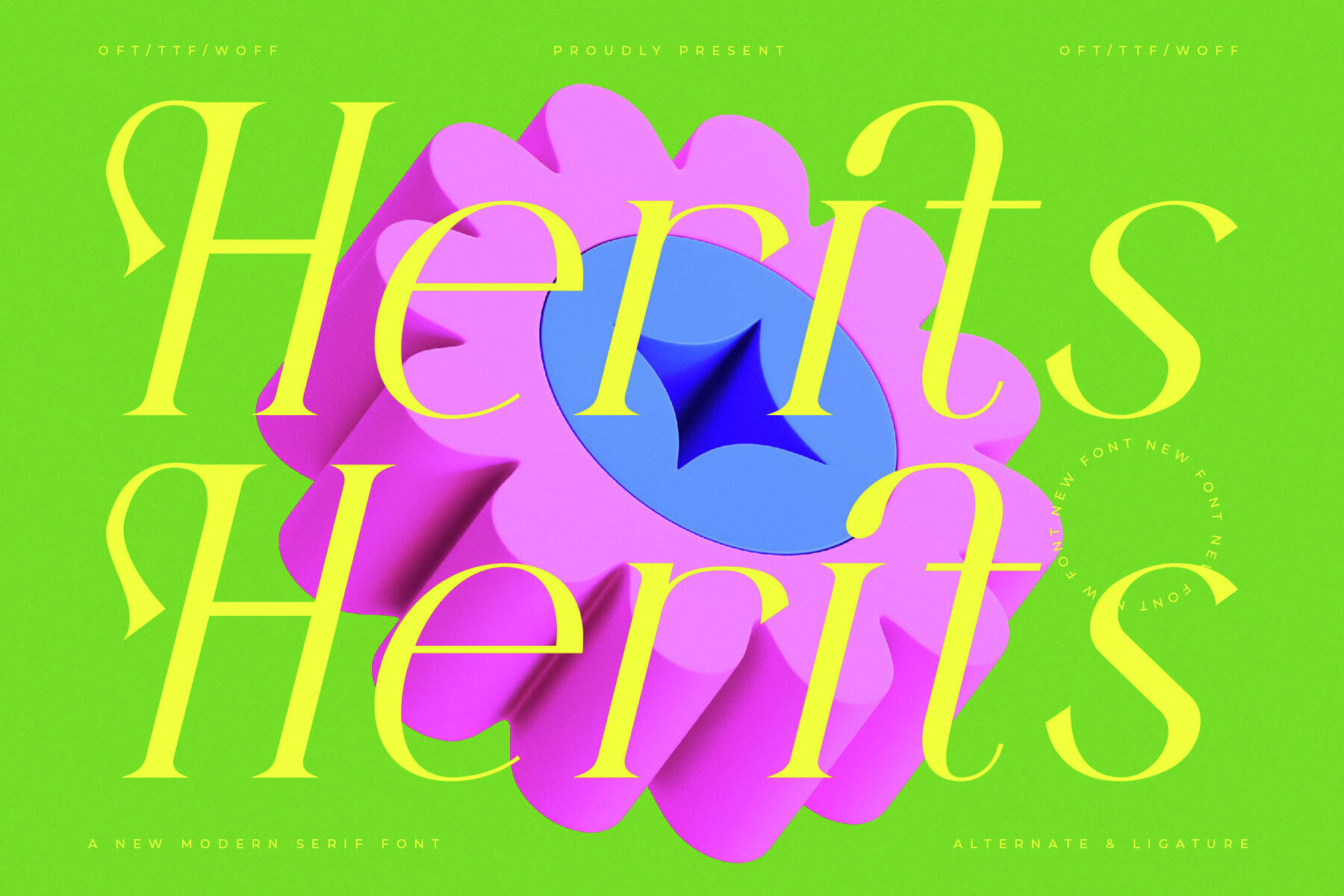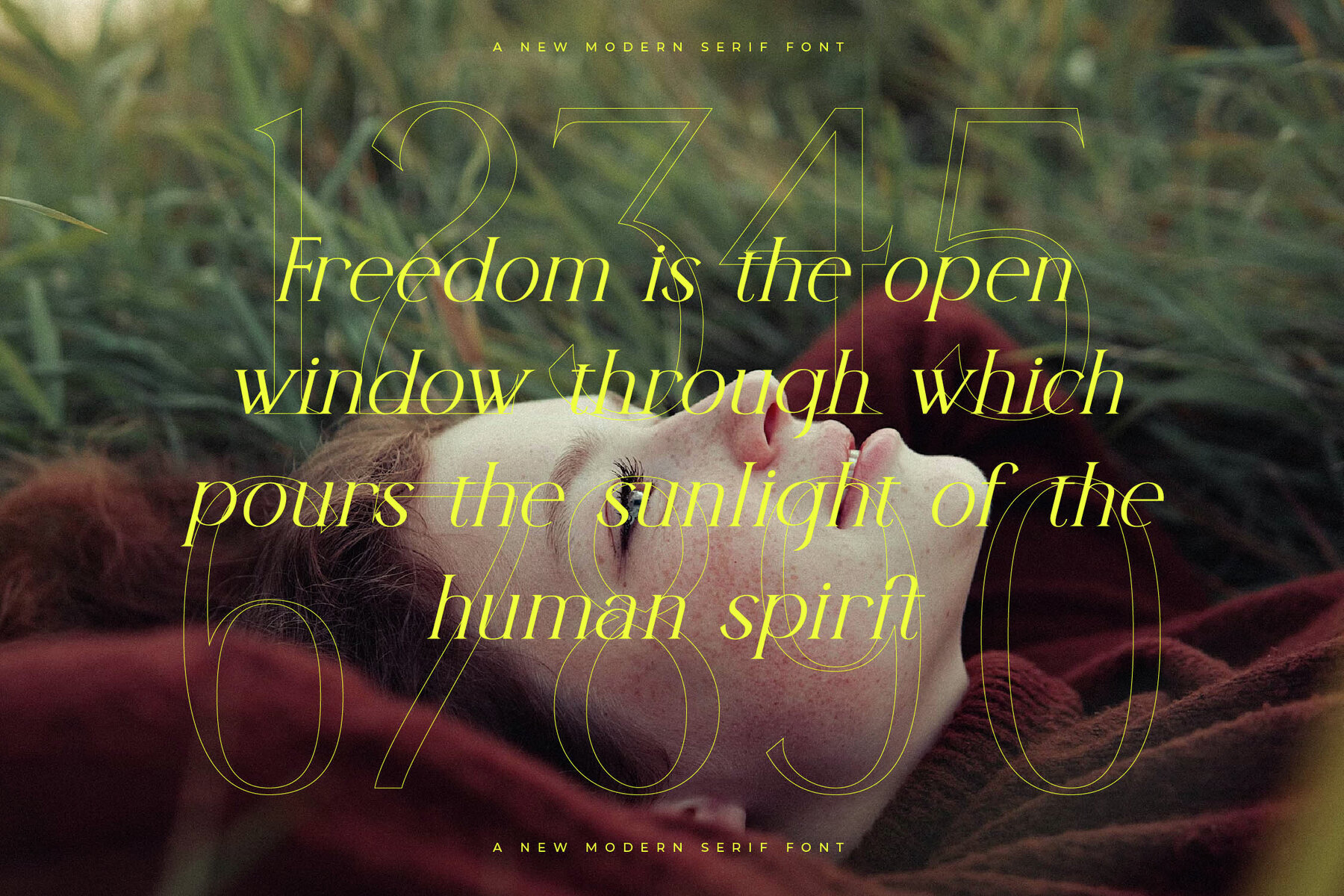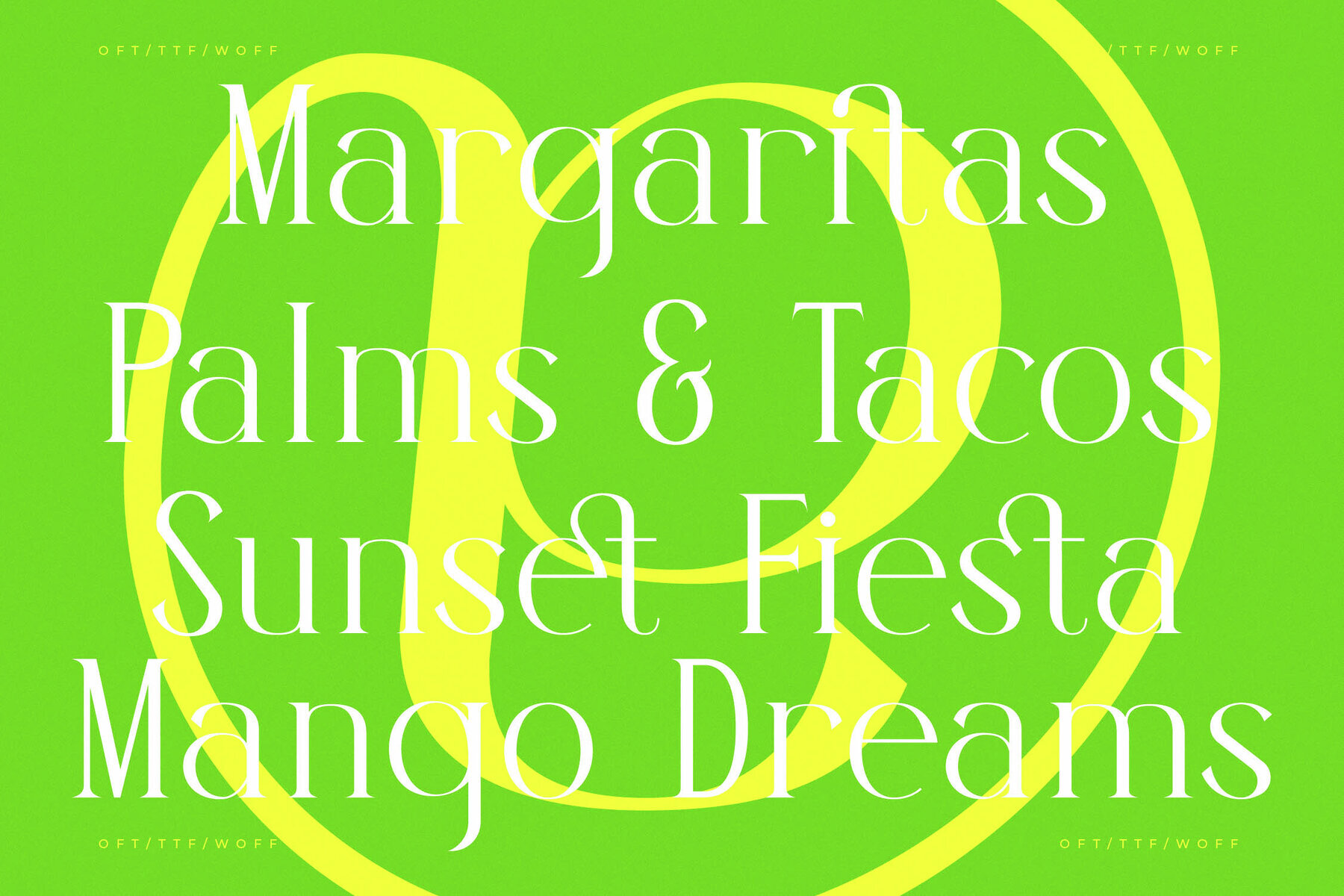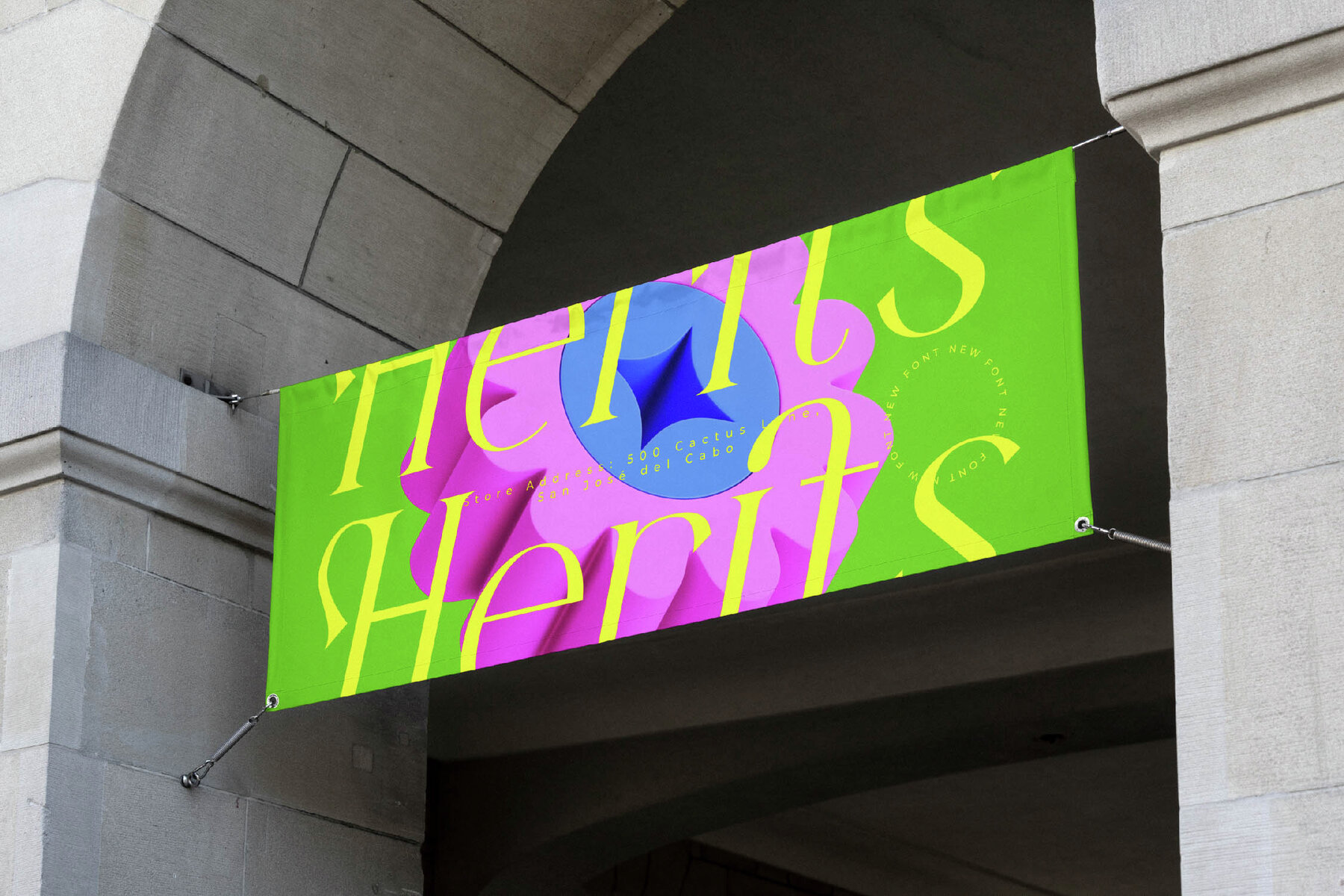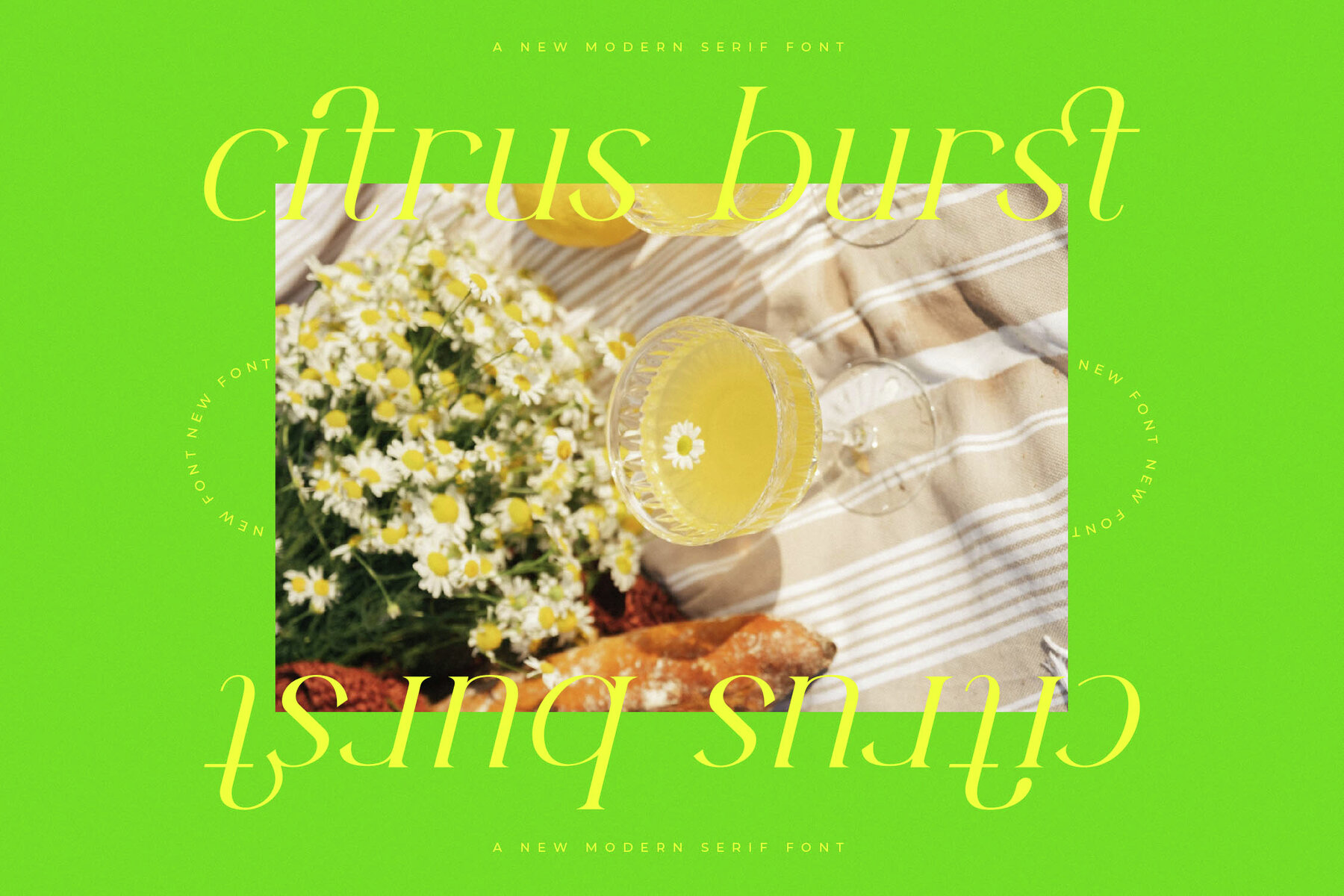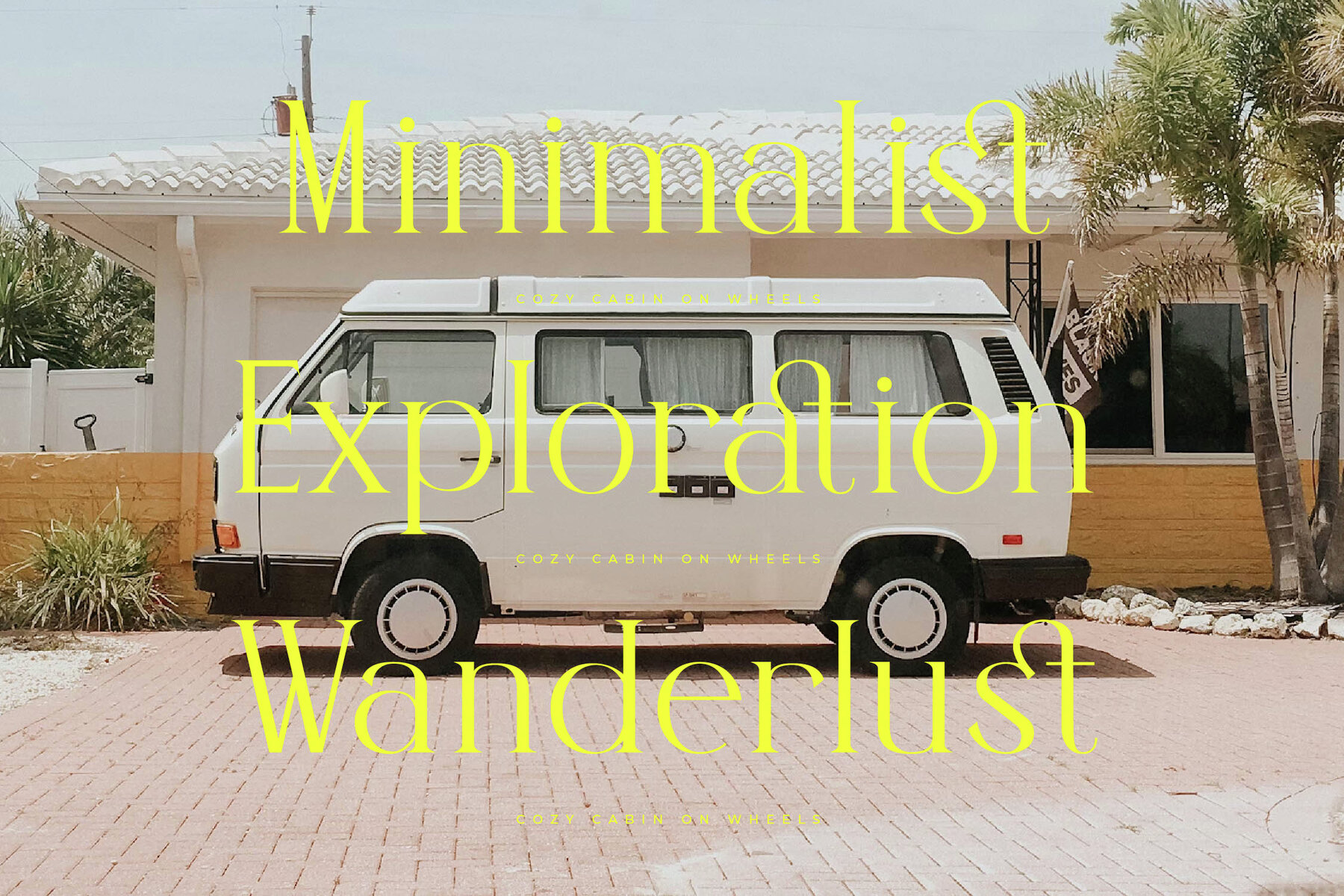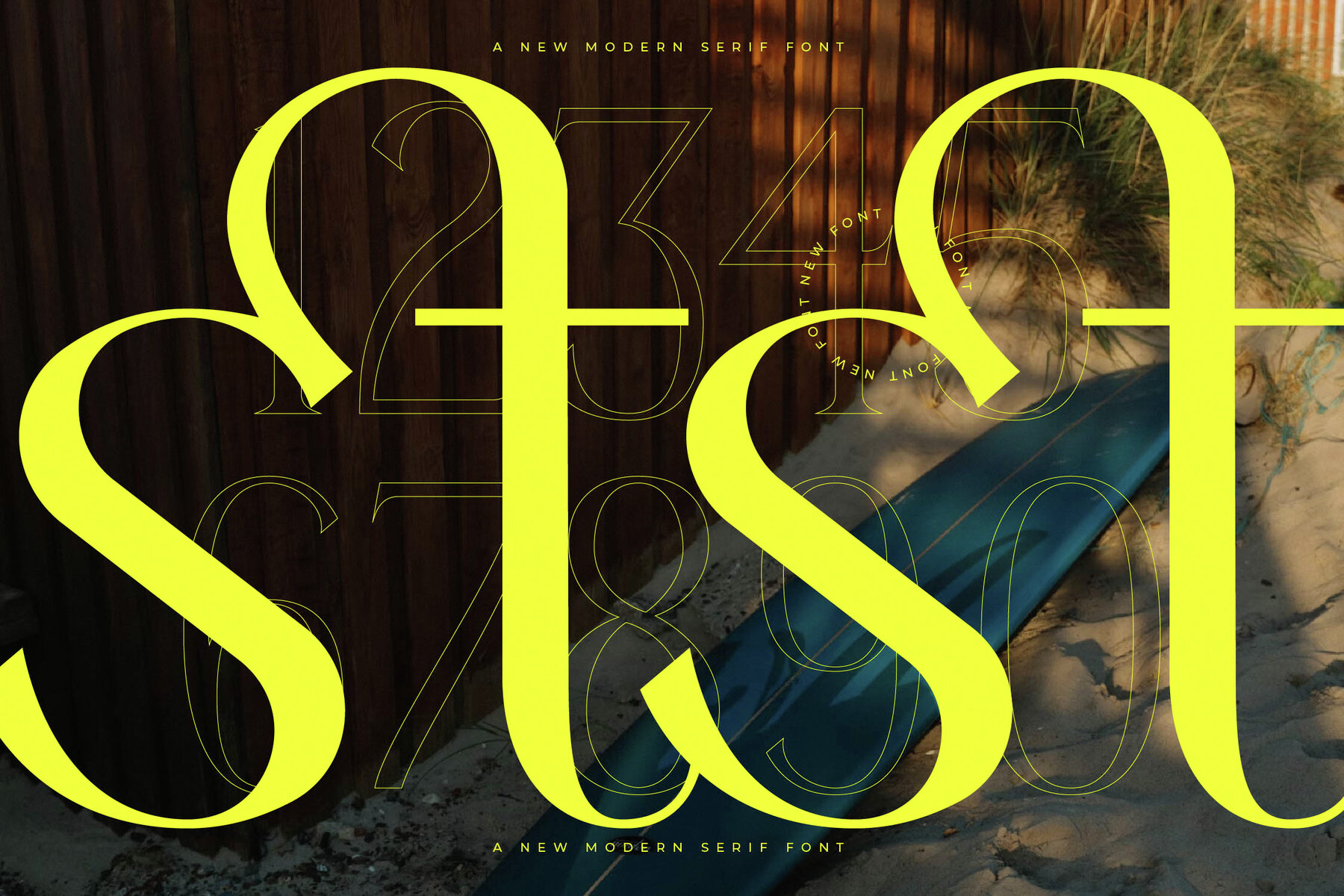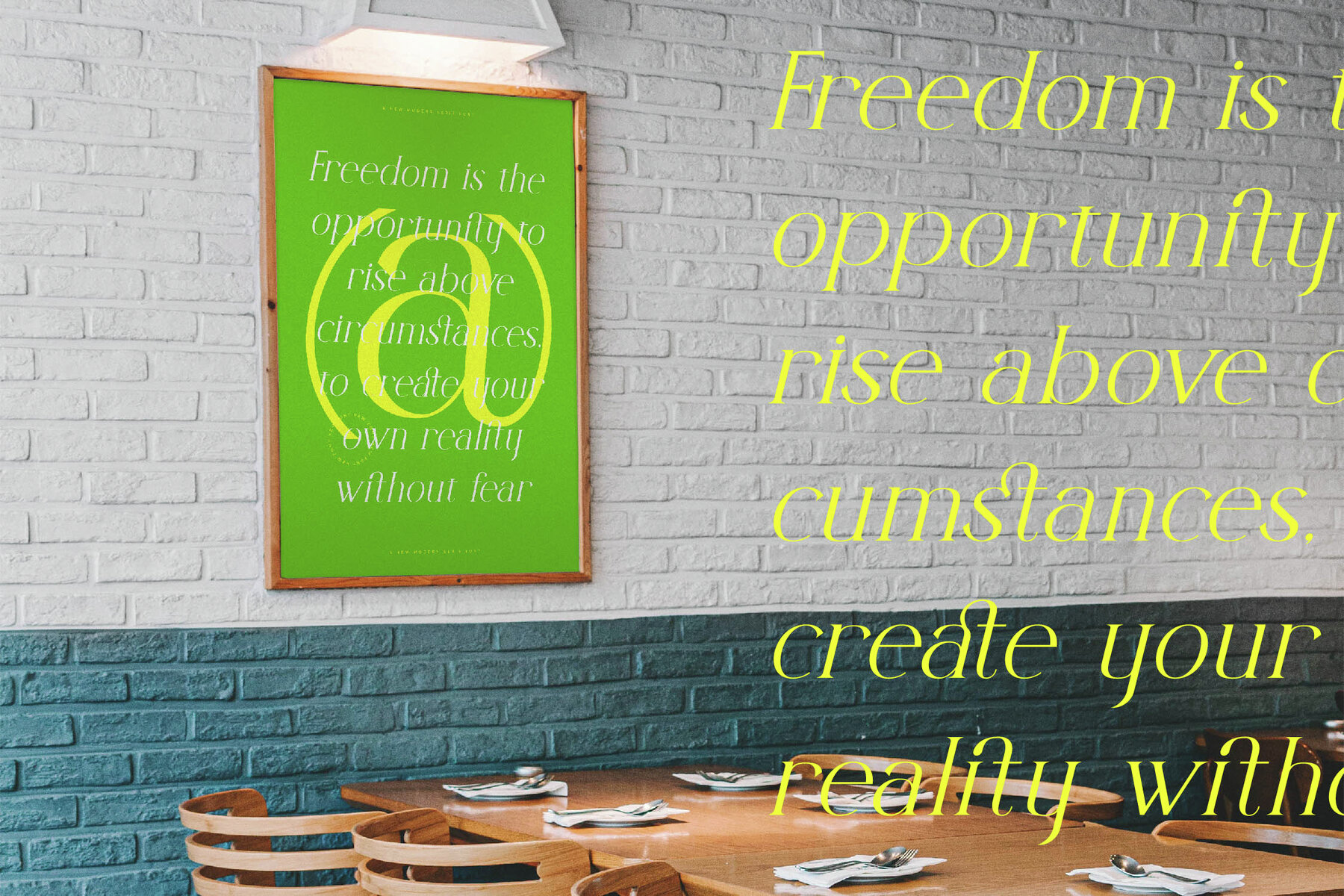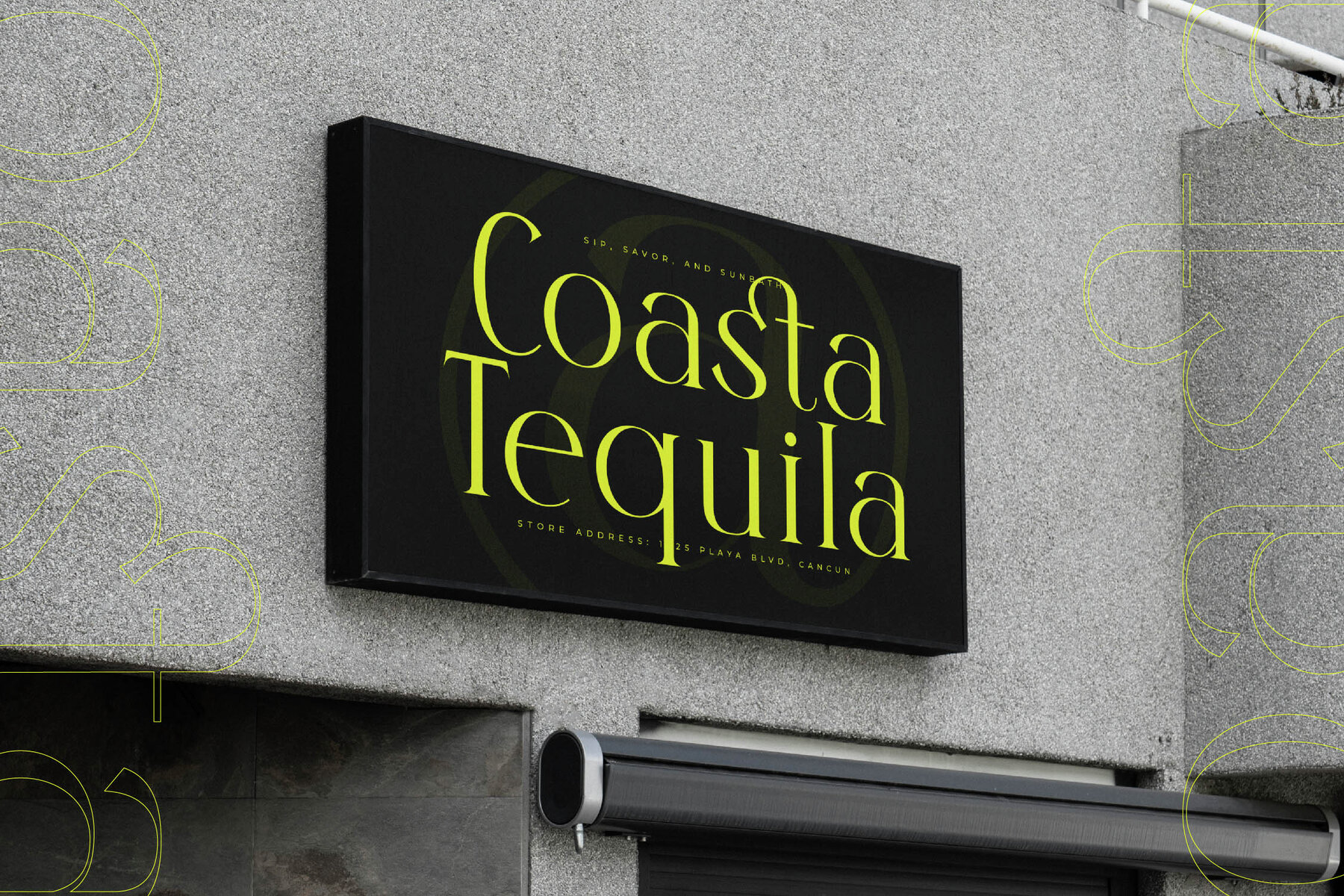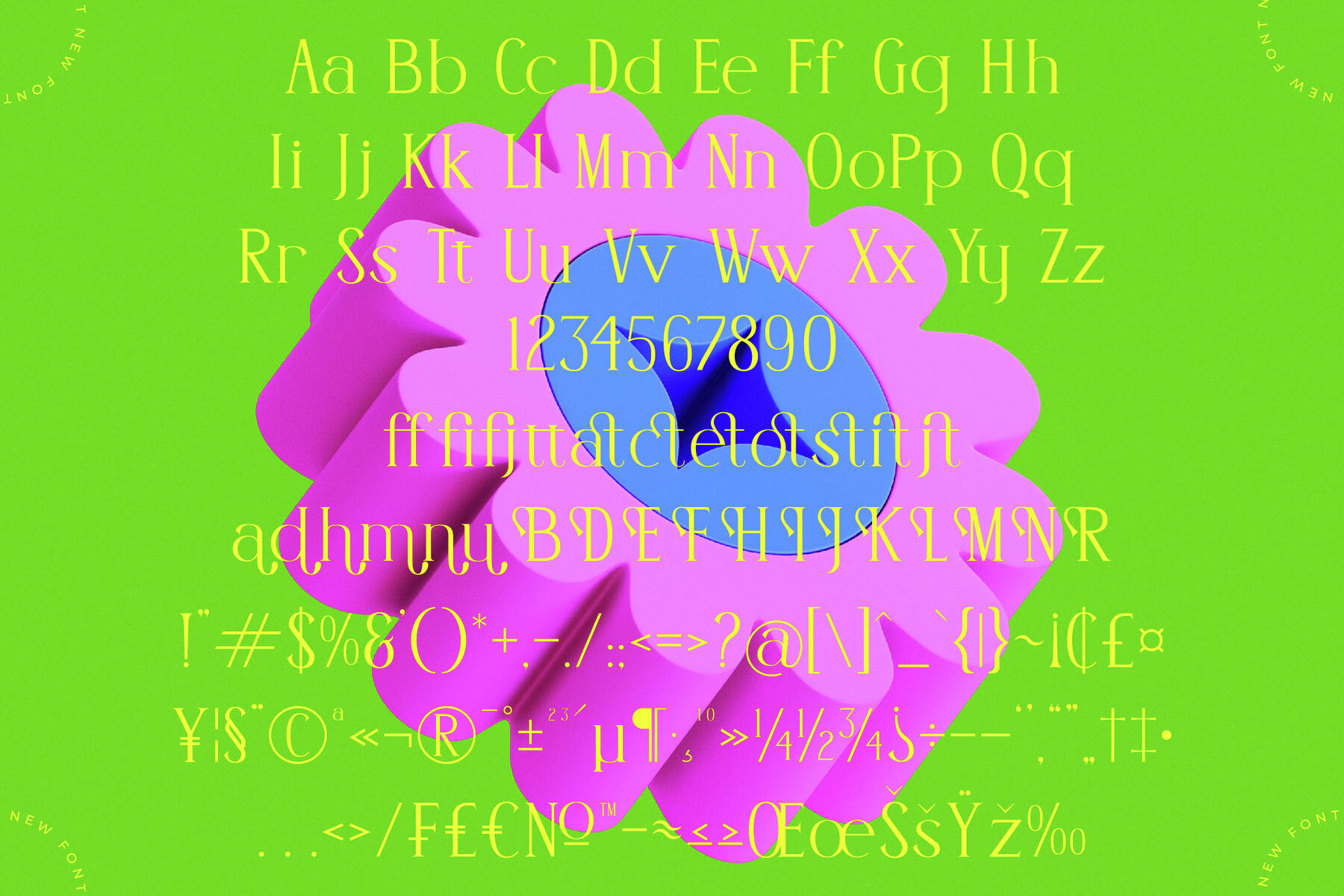
Herits Font
Herits Modern is a sleek serif font that expertly combines contemporary design with classic sophistication. Featuring clean lines, geometric forms, and refined serifs, it offers a bold yet approachable style. It's an ideal choice for high-end branding, editorial design, and premium print materials. The font’s balanced structure ensures excellent legibility, and the carefully designed alternates bring versatility to any creative project.
Perfect for upscale logos, luxury packaging, and sophisticated layouts, Herits Modern merges timeless elegance with a modern edge. Whether crafting digital or print typography, this font provides a fresh, stylish appeal, making it the ideal choice for projects demanding both refinement and contemporary flair. The package includes ligatures, alternates, and swashes. Herits Modern is compatible with PC and Mac, easy to install, and accessible in Adobe Illustrator, Adobe Photoshop, Adobe InDesign, and Microsoft Word.